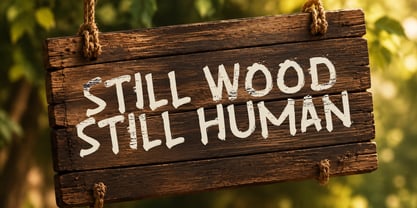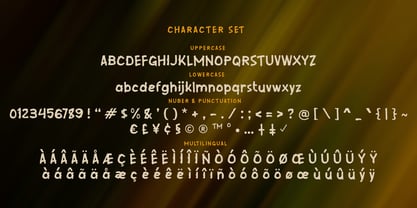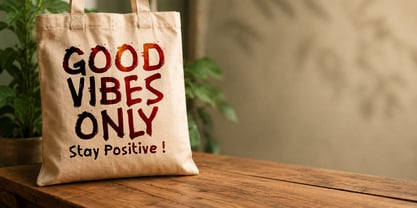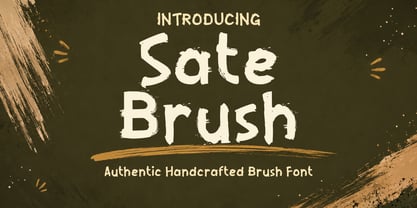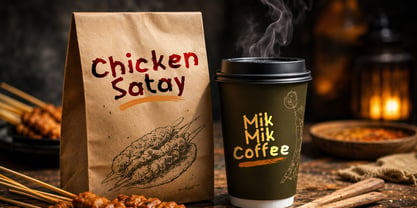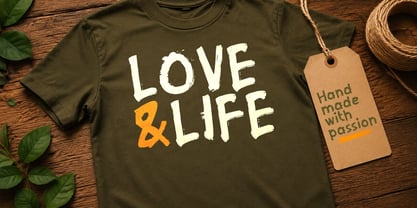
Sate Brush
by Letterytz CalliType
Sate Brush – Authentic Handcrafted Brush Font
Introducing Sate Brush, a bold and expressive handcrafted brush font inspired by rough ink strokes, street lettering, and raw artistic energy. Designed with an organic dry-brush texture, this font delivers a natural handmade appearance that feels strong, playful, and full of personality.
Every letter in Sate Brush is created to capture the imperfect beauty of real brush movements, making it perfect for designers who want an authentic and eye-catching display font. Its rough edges and textured details give your typography a unique handcrafted charm while maintaining excellent readability.
Whether you are creating branding projects, food packaging, poster designs, social media graphics, YouTube thumbnails, apparel, merchandise, quotes, or creative headlines, Sate Brush adds a bold artistic touch that instantly stands out.
Sate Brush works especially well for projects that need a rustic, urban, playful, vintage, handcrafted, or artistic vibe. The textured brush style also makes it highly suitable for café branding, restaurant menus, snack packaging, handmade product labels, music artwork, and creative advertising.
Features
• Uppercase & Lowercase
• Numbers & Punctuation
• Multilingual Support
• Alternates & Ligatures
• Easy to Read
• Handcrafted Brush Texture
• Perfect for Display & Headlines
• Style Regular
• Style Oblique
Perfect For
• Branding
• Packaging Design
• Posters
• Logos
• Social Media
• YouTube Thumbnails
• Merchandise
• Apparel Design
• Food & Beverage Branding
• Quotes & Headlines
• Handmade Product Labels
• Creative Projects
Sate Brush combines bold brush energy with a fun handcrafted personality, making it an excellent choice for designers who want typography that feels natural, expressive, and memorable.